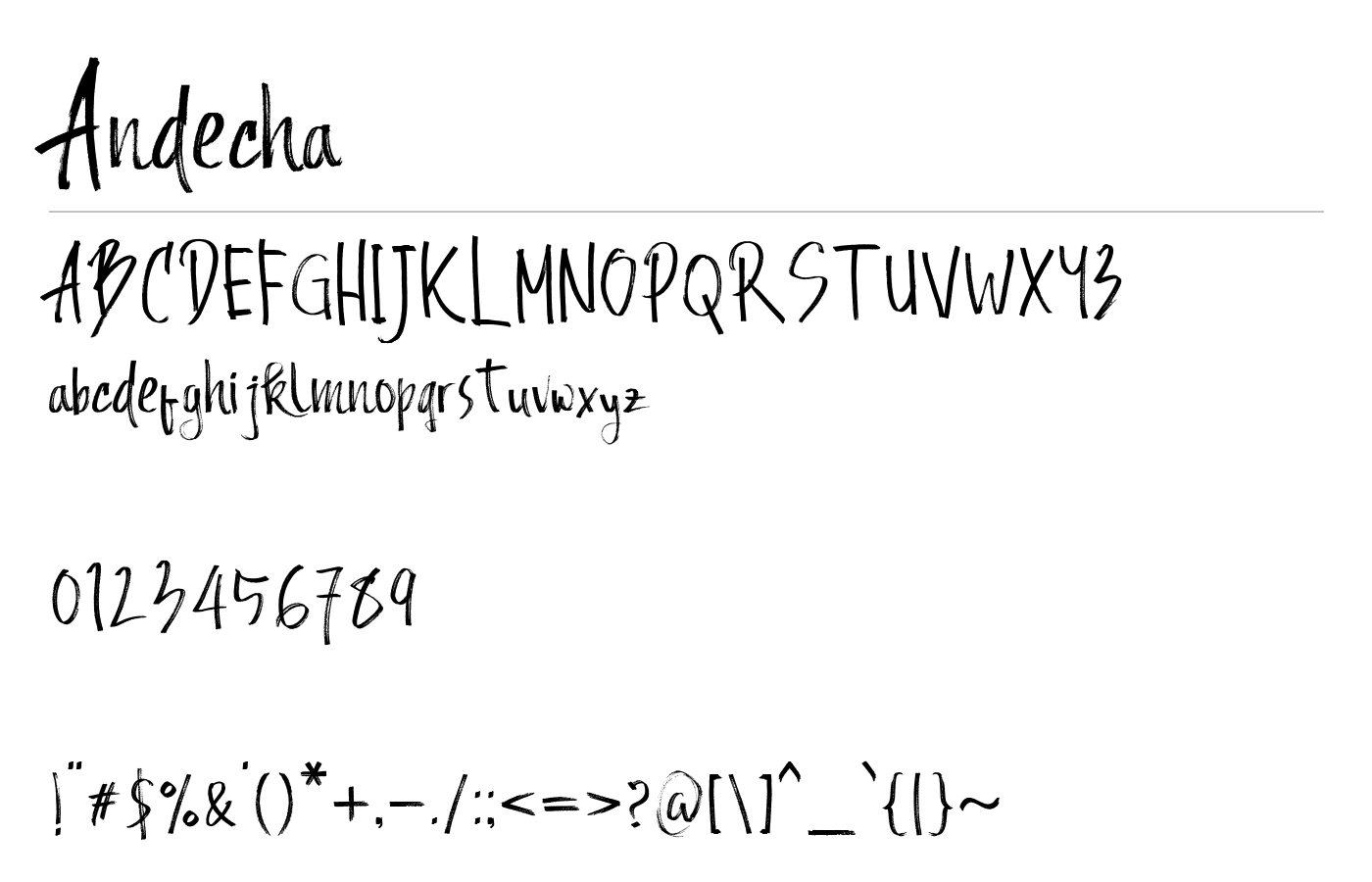
Andecha is a casual, handwritten sans serif font characterized by its tall, narrow letterforms and uneven, playful strokes that convey an organic, hand-painted feel. Its irregular shapes and varying line thicknesses give it a lively, informal personality, making it ideal for creative projects, personal branding, and expressive headlines where a natural, approachable vibe is desired. This font works well in designs that aim to feel authentic and friendly without sacrificing uniqueness.
| Font family | Andecha Font |
| Designer | Hanif Syahputra |